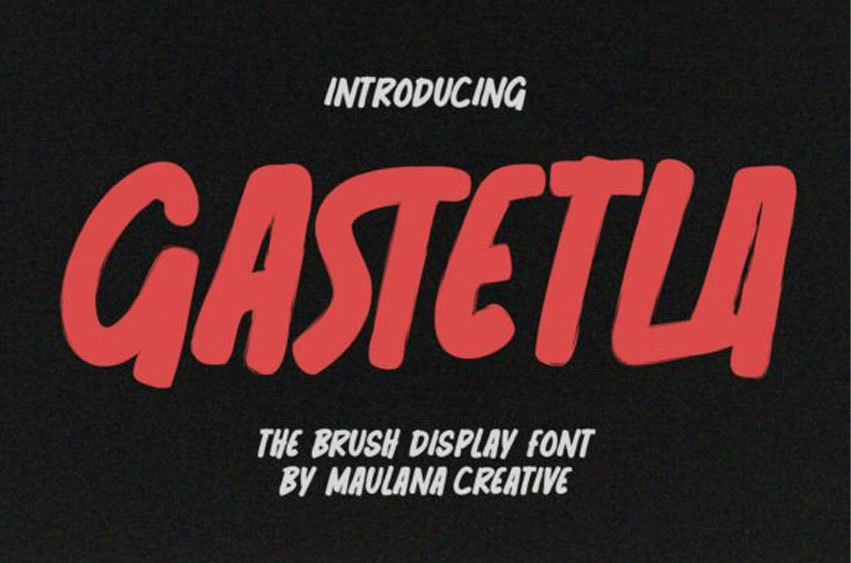
Gastetla Font is a bold brush display font with dynamic strokes and a raw, hand-painted feel.
Its thick lettering and natural texture give it energy and movement, making it perfect for impactful headlines, posters, logos, merchandise, and social media graphics. With its confident and artistic personality, Gastetla brings bold expression to modern designs.